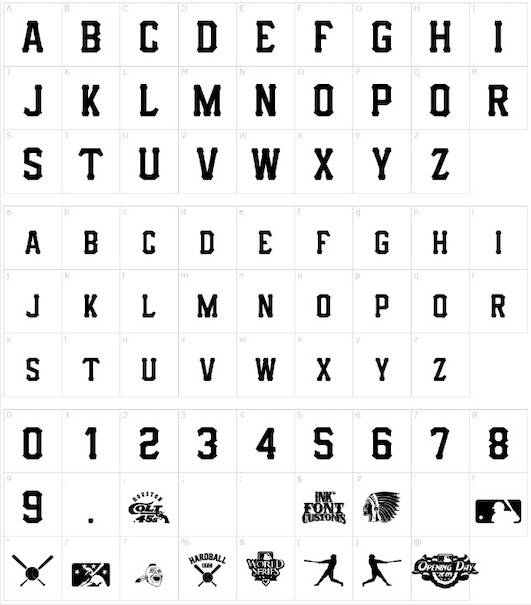
IFC Hardball font was created by Anton Krylov. This is a great fancy typeface for pro designers. That perfect typeface has a whole lot of connections and variations. If you want to play with an effect with fonts, then IFC Hardball Font will be great for it.
IFC Hardball Font